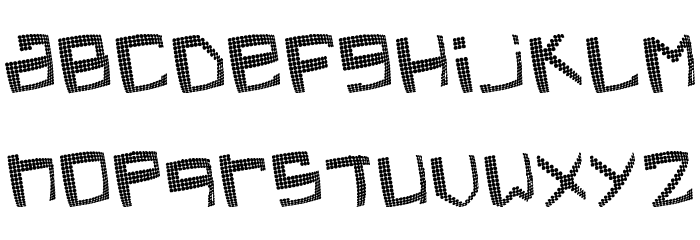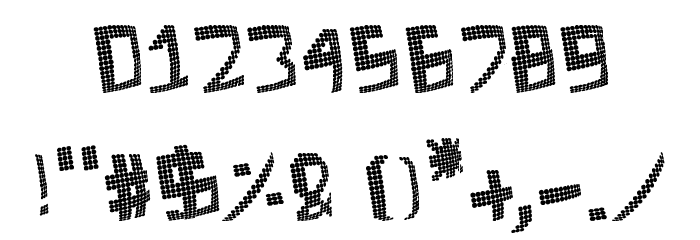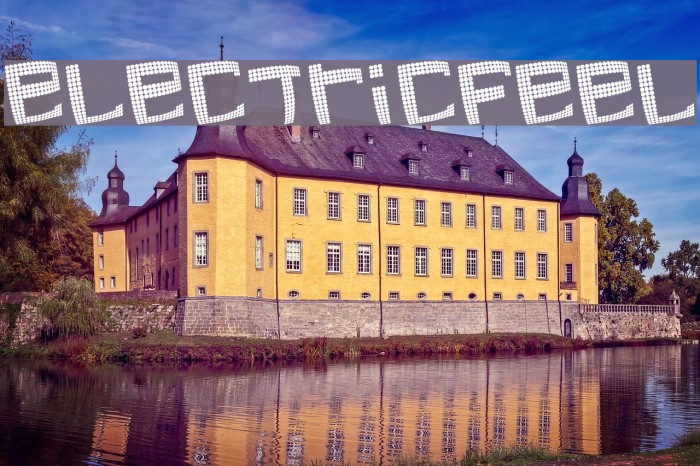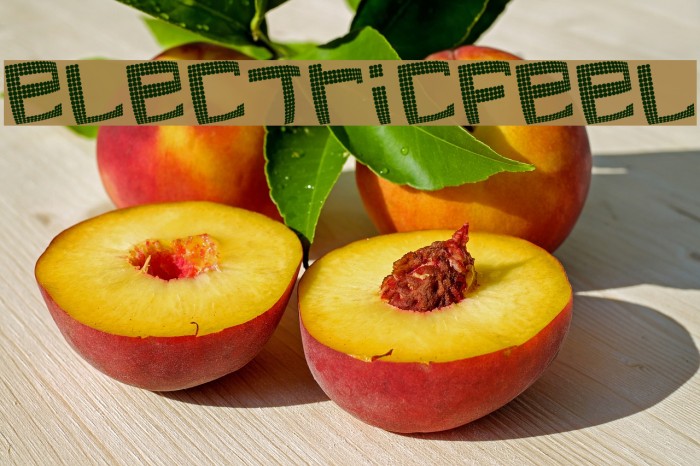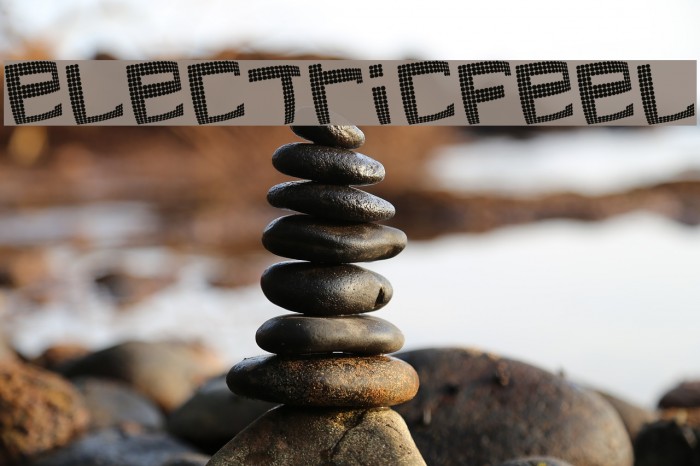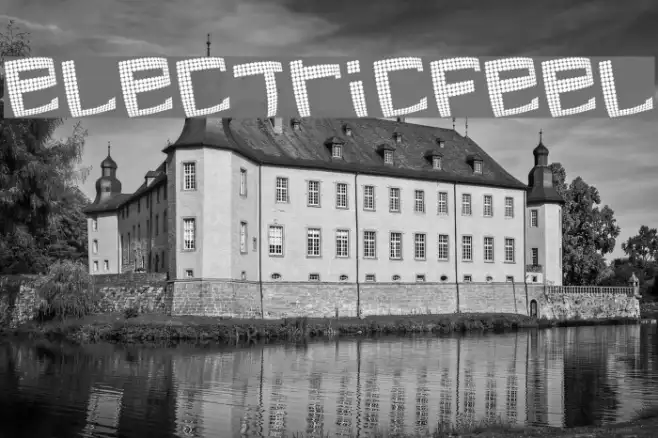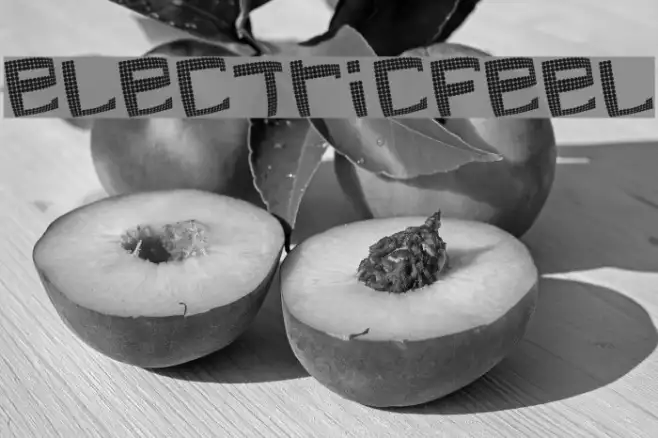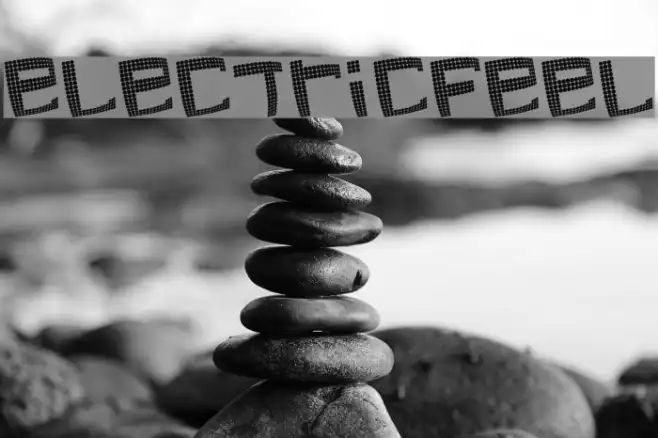
electricfeel Font
This font features a unique, pixelated design reminiscent of digital displays or retro video games. Each character is composed of small, square dots, creating a textured and dynamic appearance. The letters are slightly slanted, adding a sense of movement and modernity. The uppercase and lowercase letters maintain a consistent style, with clear differentiation between the two. Numbers and special characters follow the same pixelated pattern, ensuring uniformity across all glyphs. This font is ideal for projects that require a futuristic or tech-inspired aesthetic.
A pixelated, digital-inspired font with a modern, dynamic slant.
- Proposed Projects: Ideal for tech-themed designs, video game graphics, digital art projects, and futuristic branding.
- Use Case: Logos, Headlines, Digital Art